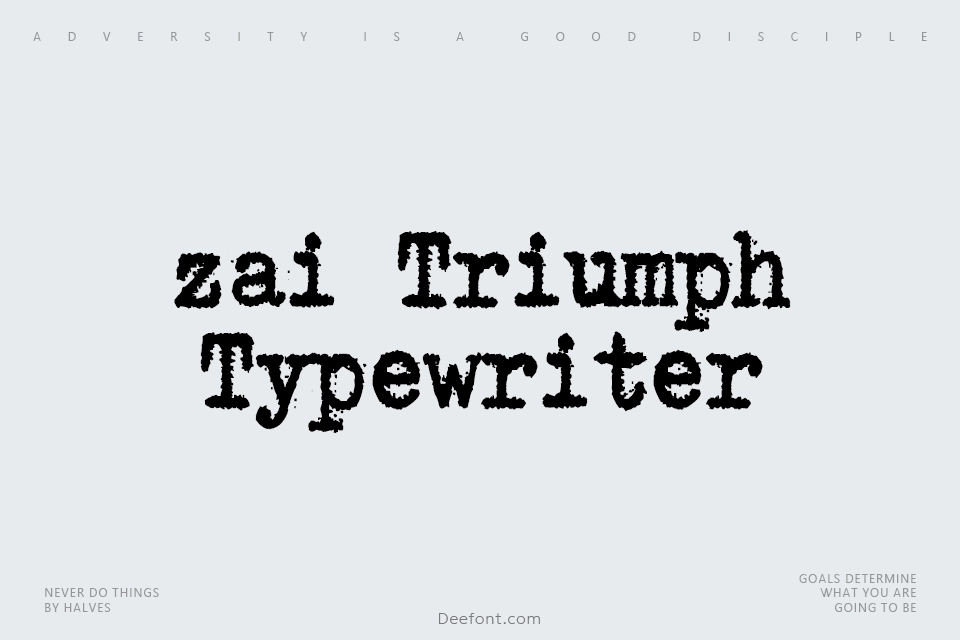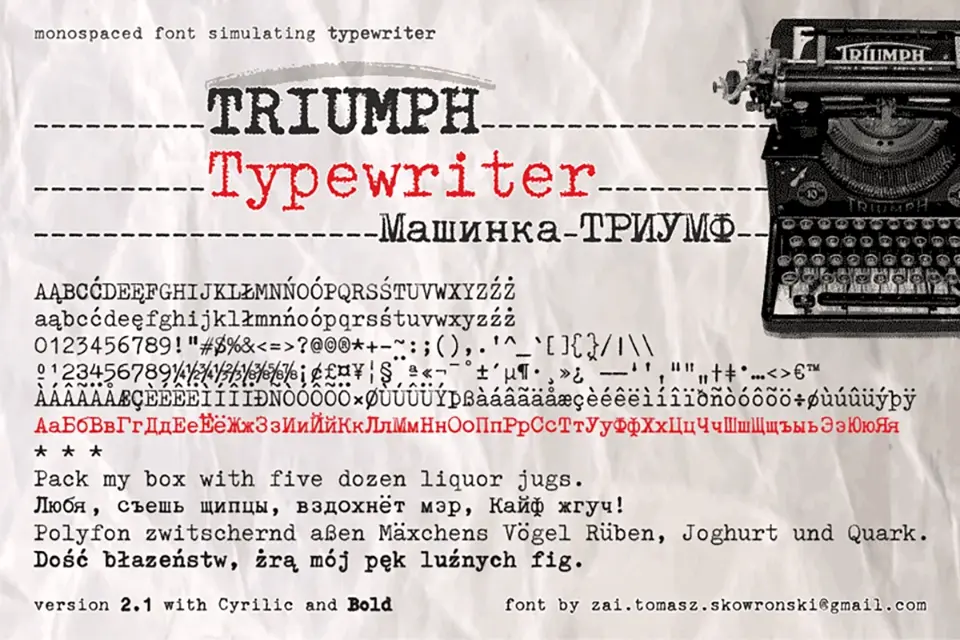
zai Triumph Typewriter Font
The zai Triumph Typewriter is a distinctive typewriter-style font that brings vintage charm and mechanical character to your designs. With its authentic typewriter aesthetic, this display font delivers a nostalgic, professional look perfect for retro projects, creative writing, and contemporary design applications. Featuring bold letterforms and a monospaced character structure, it offers versatility for headlines, posters, and artistic compositions that demand personality and impact.
Designed by:Tomasz Skowroński